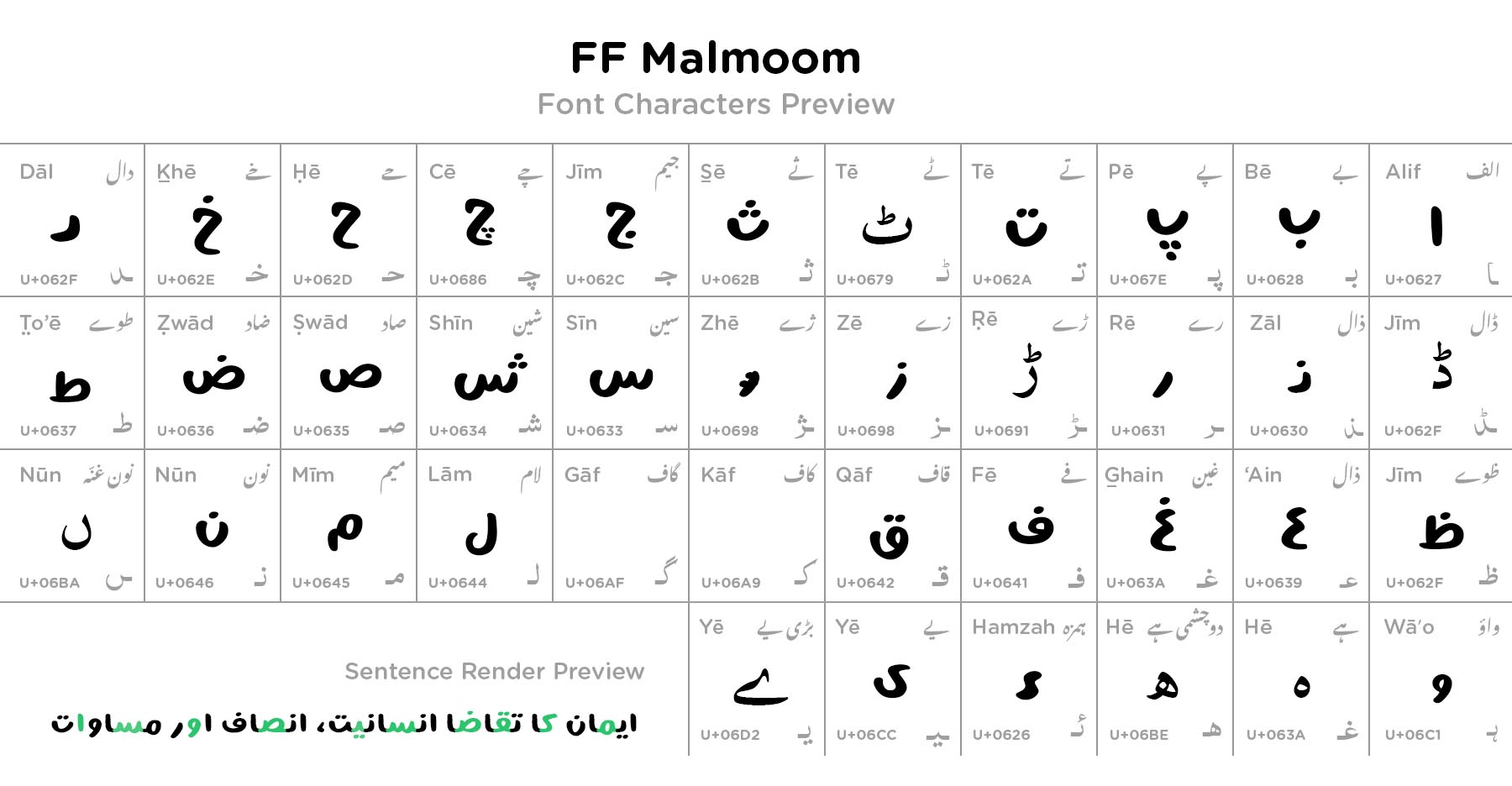
FF Malmoom is an Arabic typeface that was designed by an Arabic font designer Fahd Al Fraikh and was licensed in 2020. The font features thick, rounded strokes and exaggerated curves, making the characters stand out and easily recognizable. This bold presence is perfect for grabbing attention and adding a touch of fun to any project. The lines aren’t perfectly uniform, mimicking the organic feel of hand-drawn lettering. This adds a sense of originality. Its cartoonish style is perfect for books, apps, or animations aimed at young audiences. Its playful nature can add personality to brands targeting children or young adults. Moreover, FF Malmoom has a charset comprising 393 letters and symbols with 432 glyphs, making it a diverse font for various purposes. It also has compatibility with the latest Unicode standards with support for Arabic and Latin. It is highly readable even at lower sizes, the precisely crafted letterforms guarantee that each character stays distinct and clearly visible.
FF Malmoom
| Font Family | FF Malmoom |
| Font Developer | Fahd Al Fraikh |